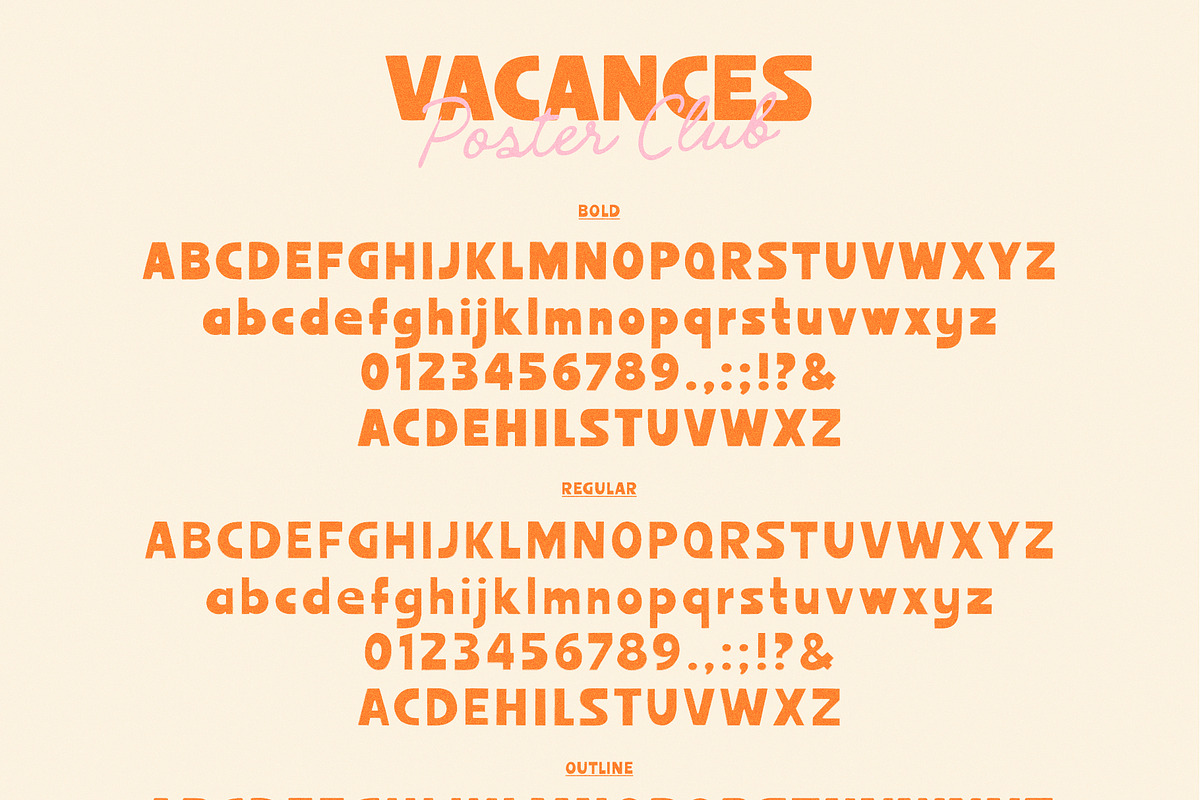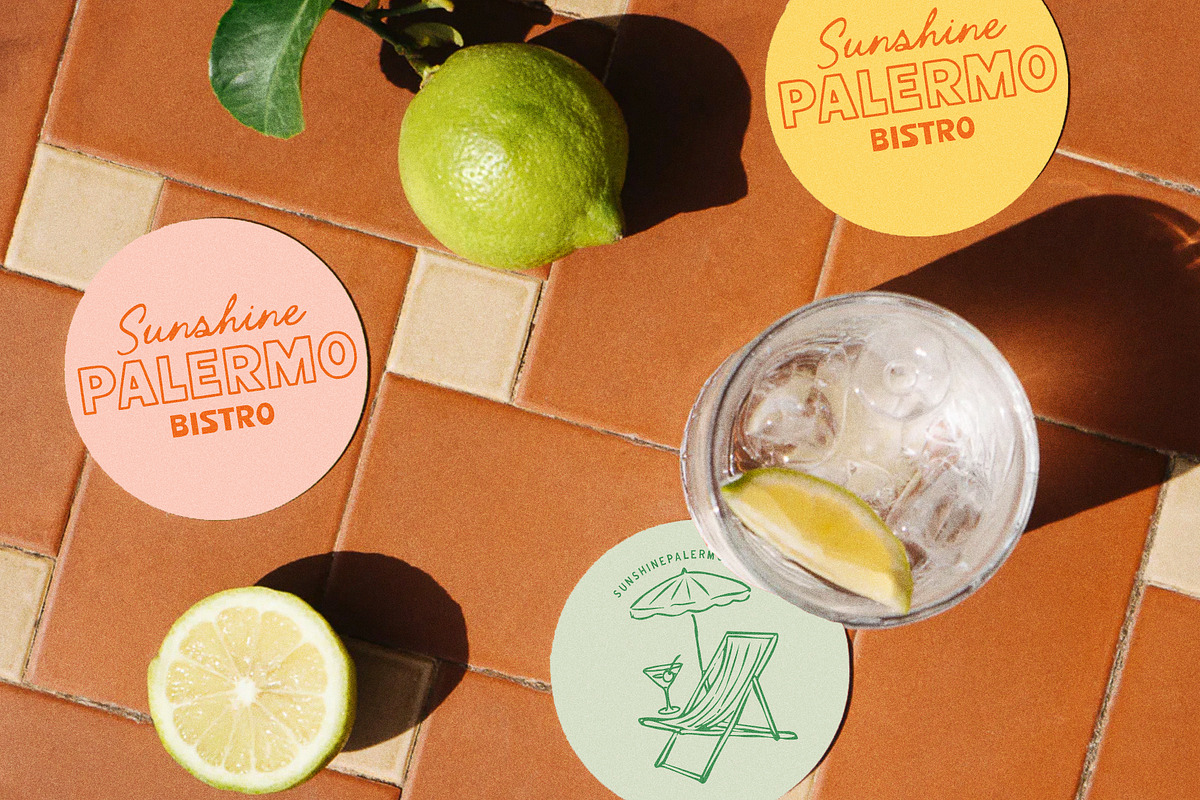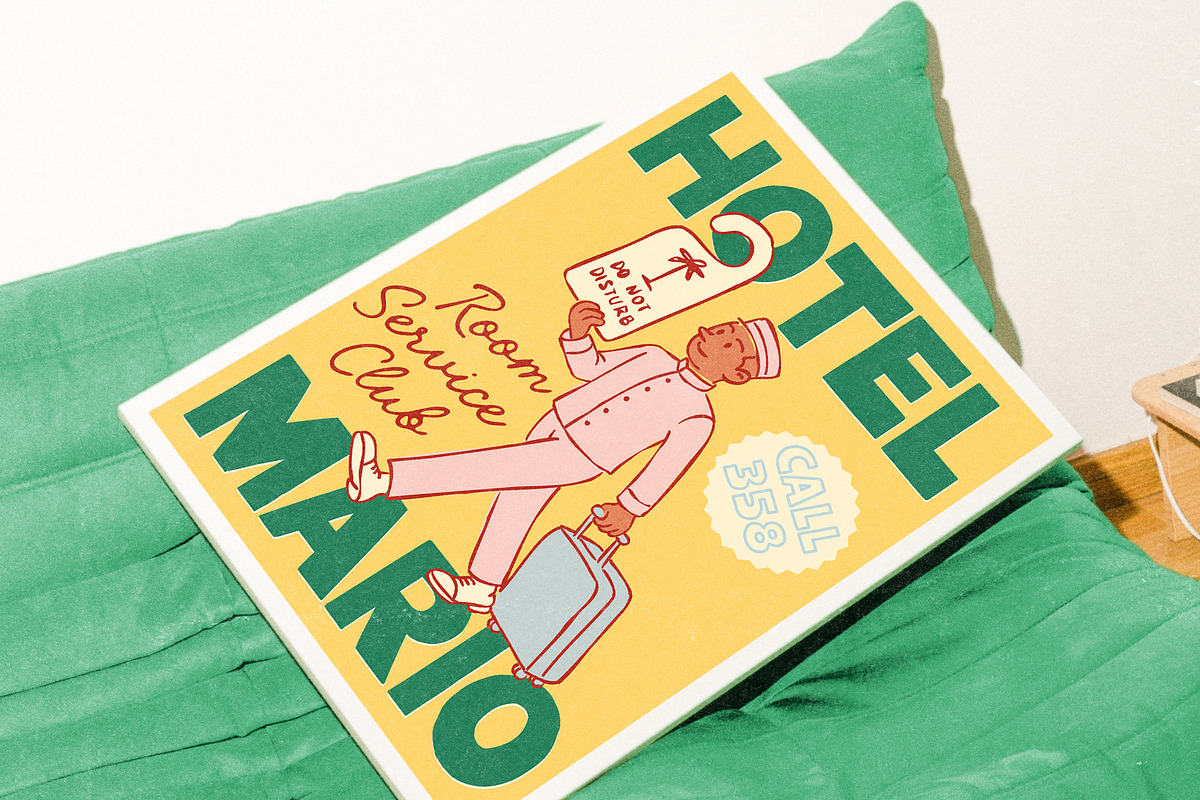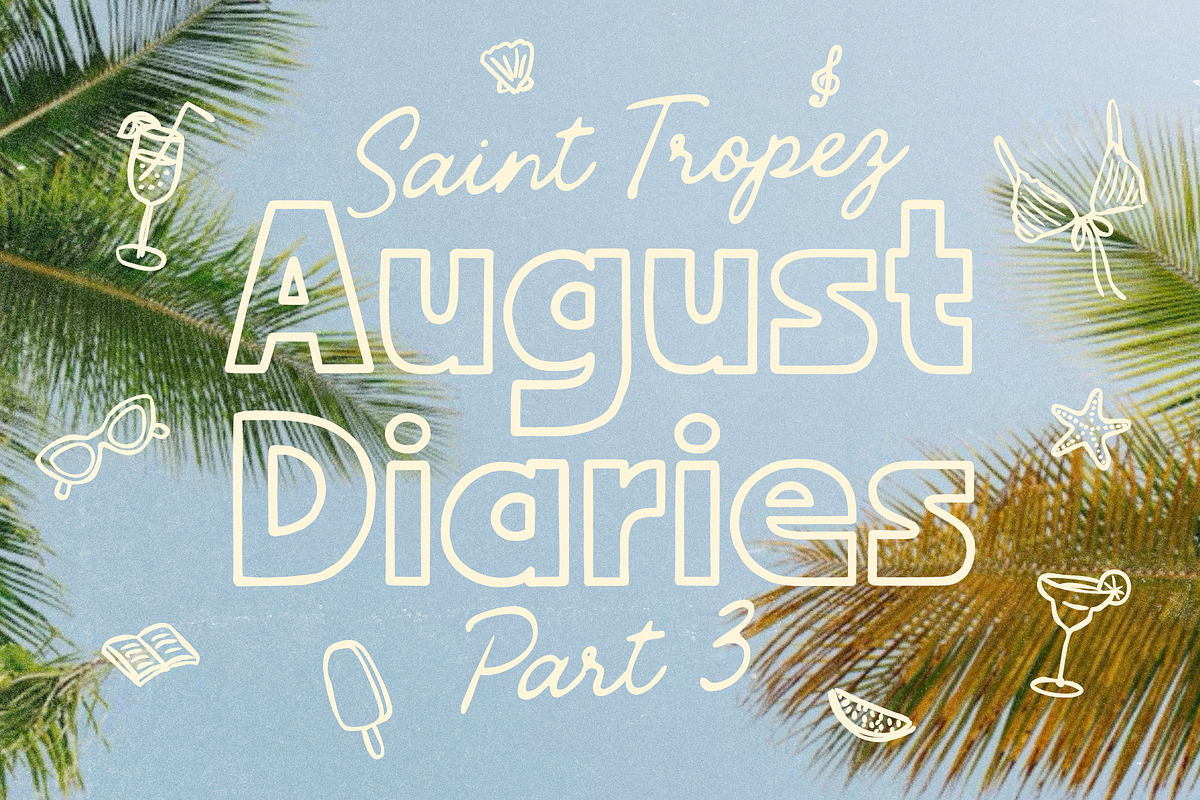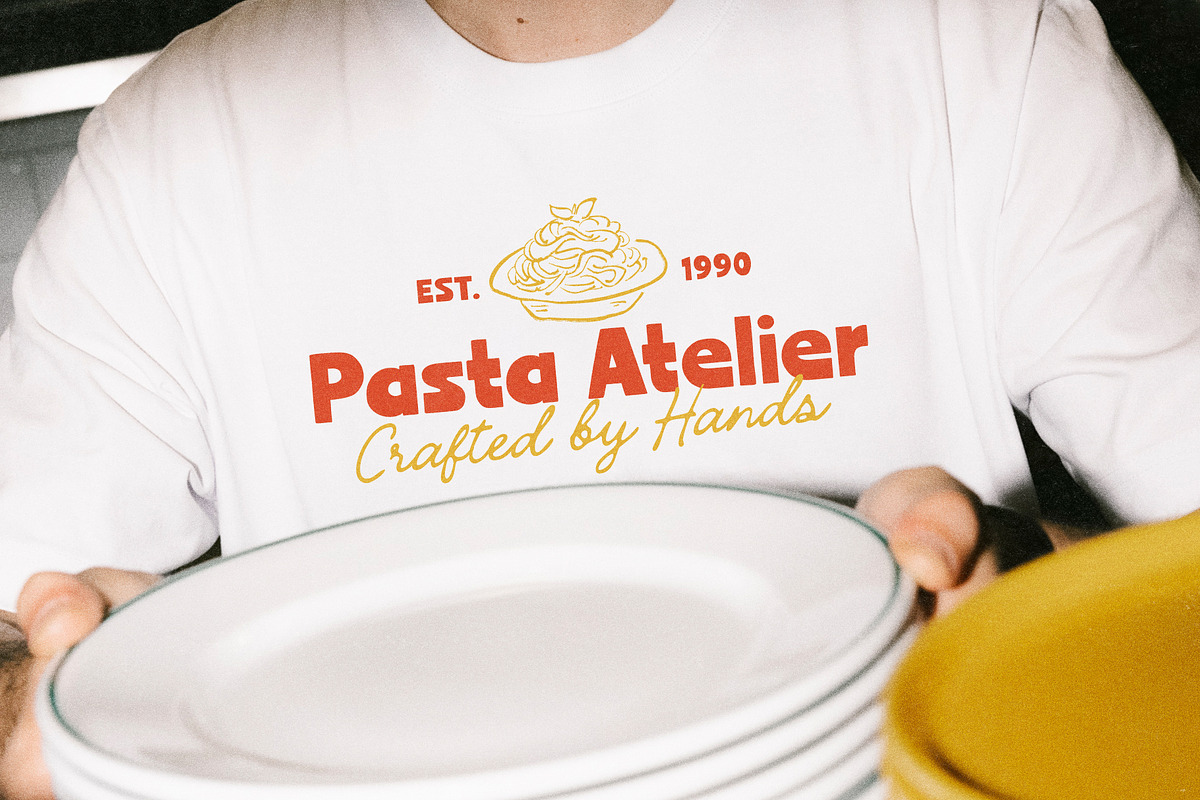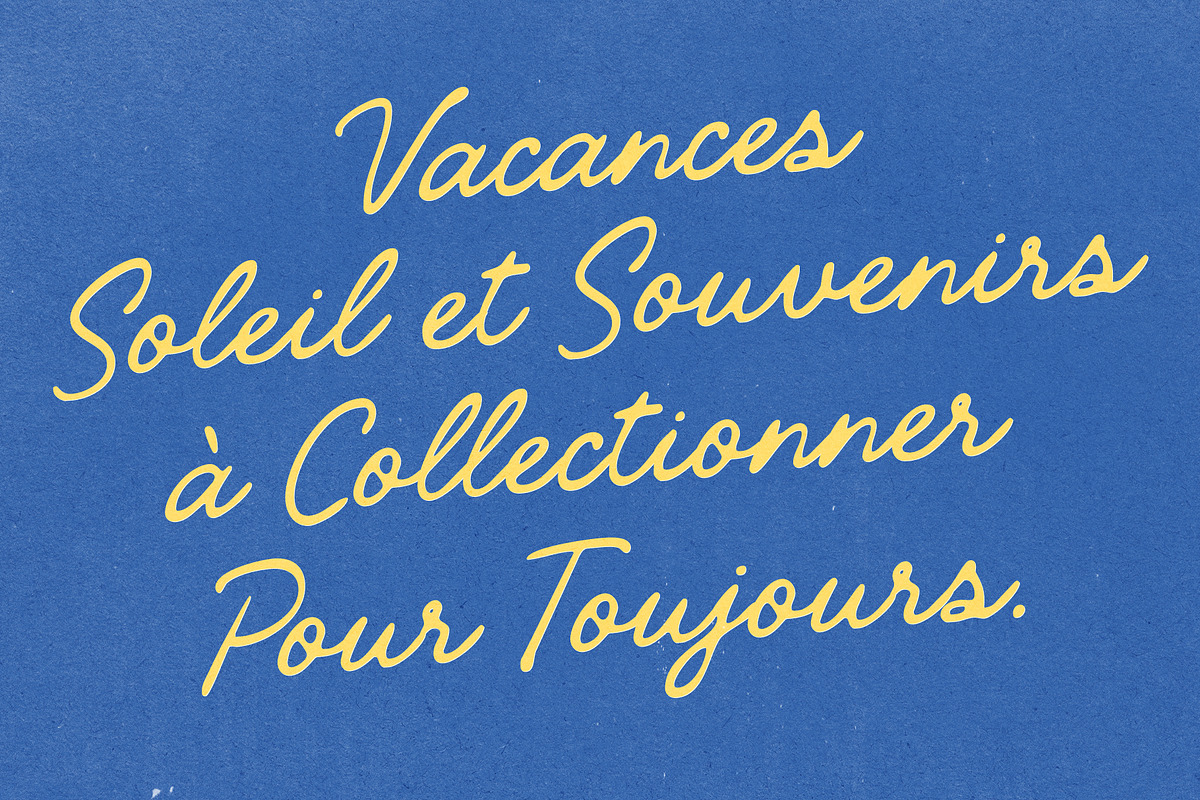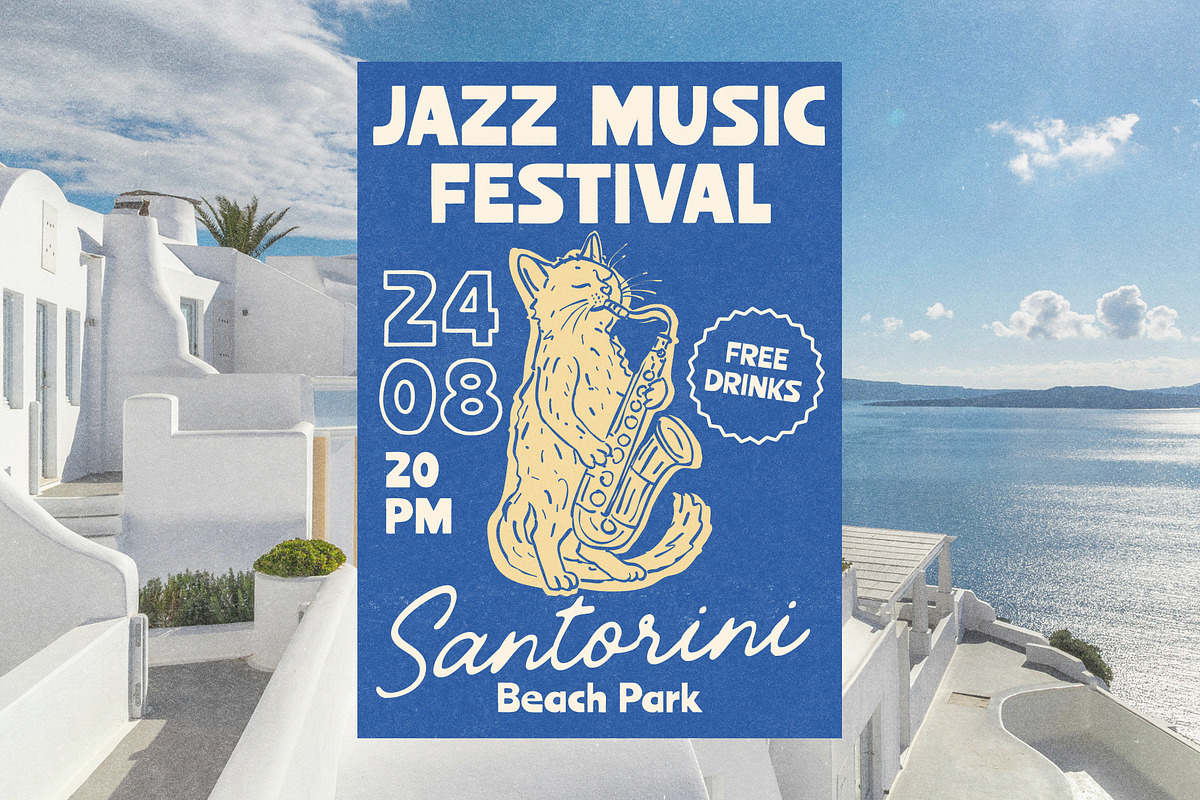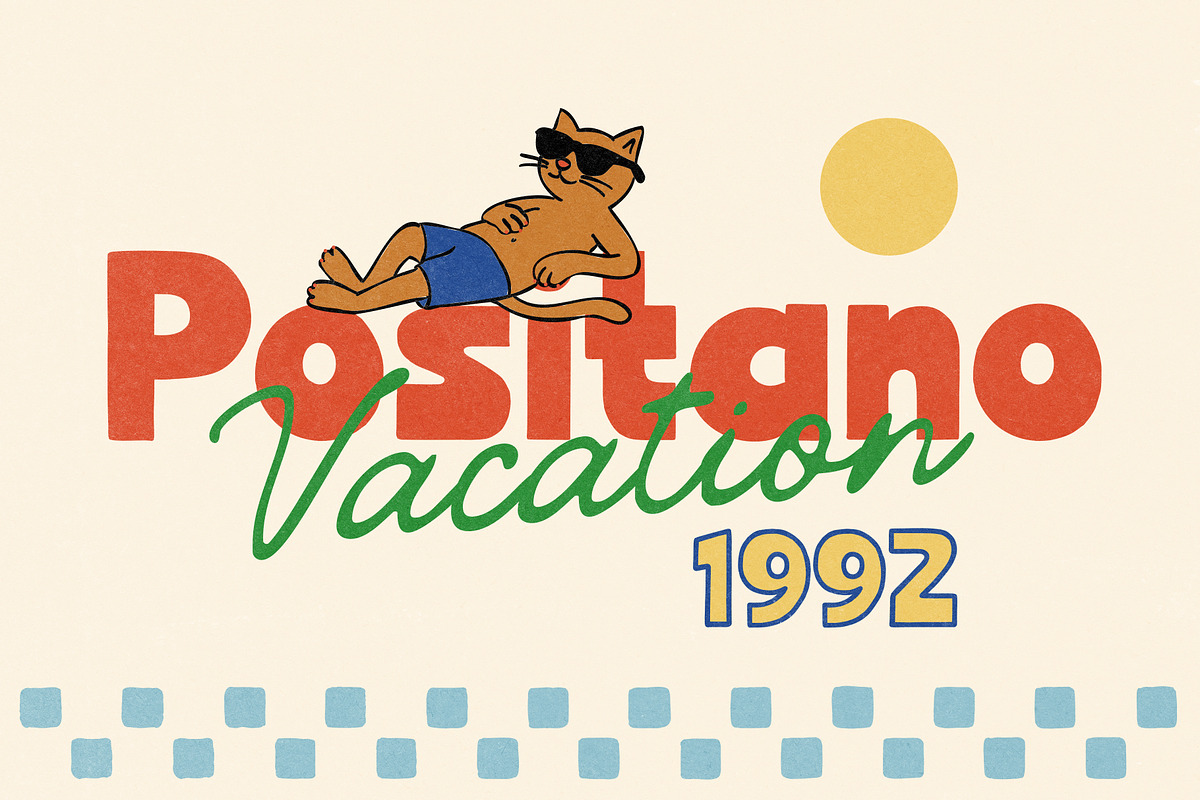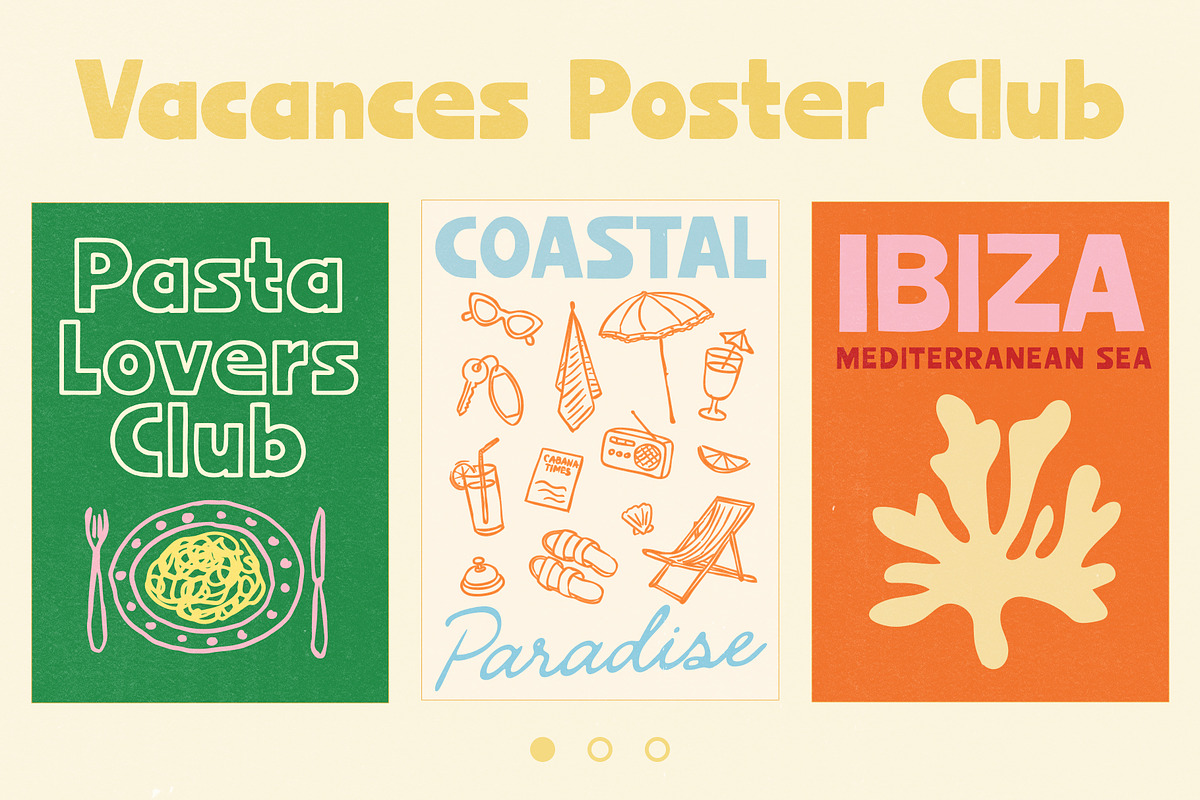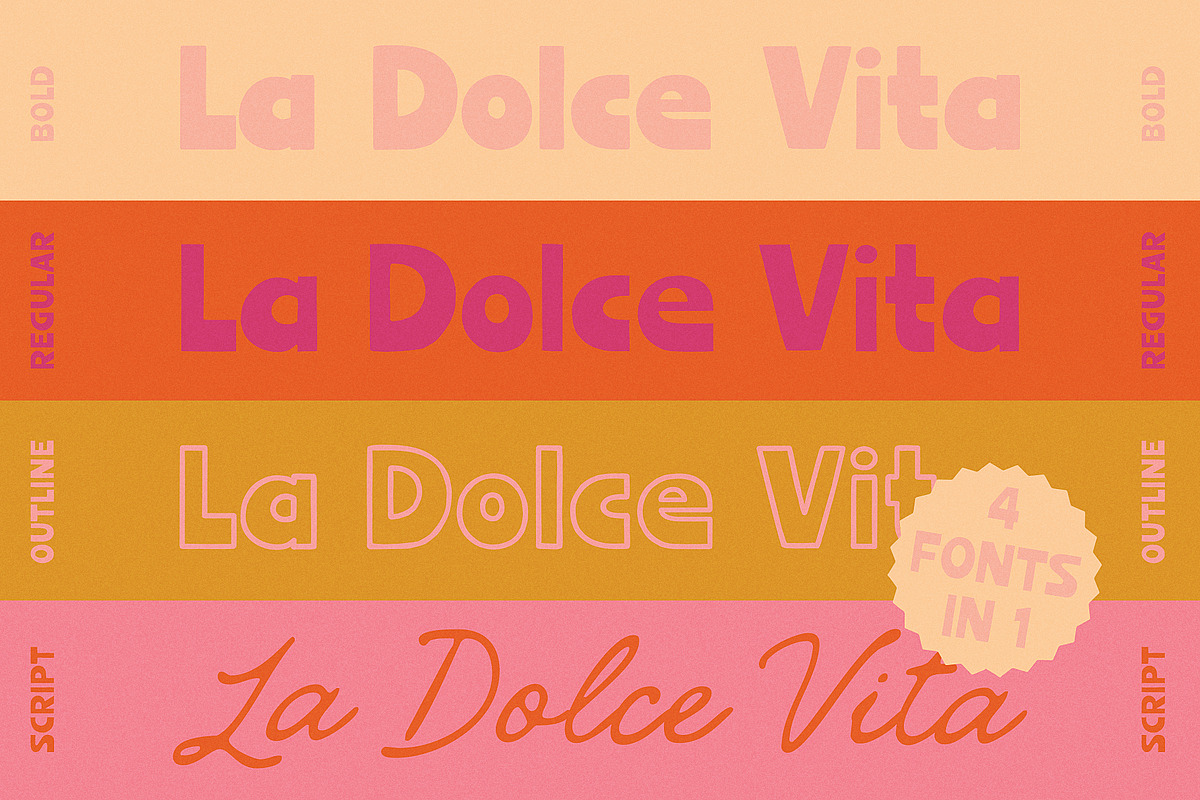
Handwritten Vintage Font For Posters
Vacances Poster Club — Handwritten Vintage Font for Posters (+ Illustrations) 🛵🌀🪩
This is what happens when vintage typography meets modern design needs — a font family inspired by retro poster design, like the kind you’d see on old French or Italian magazine covers, handwritten menus, or signage at coastal hotels that haven’t changed since the ’70s — and still look effortlessly stunning!
Vacances Poster Club includes 5 handwritten fonts that feel casual, bold, and imperfect in the best way. It’s ideal for branding, typographic posters, YouTube thumbnails, quote designs, and social media graphics that need personality and a sense of time and place.
Despite its name, this font works far beyond summer themes. It brings a warm, nostalgic energy that fits just as well in cozy autumn branding, winter travel posters, or springtime event designs. The style is relaxed, slightly retro, and immediately recognizable.
Also included: a set of custom hand-drawn illustrations that complement the fonts and make it easy to build an entire visual language. ⛱